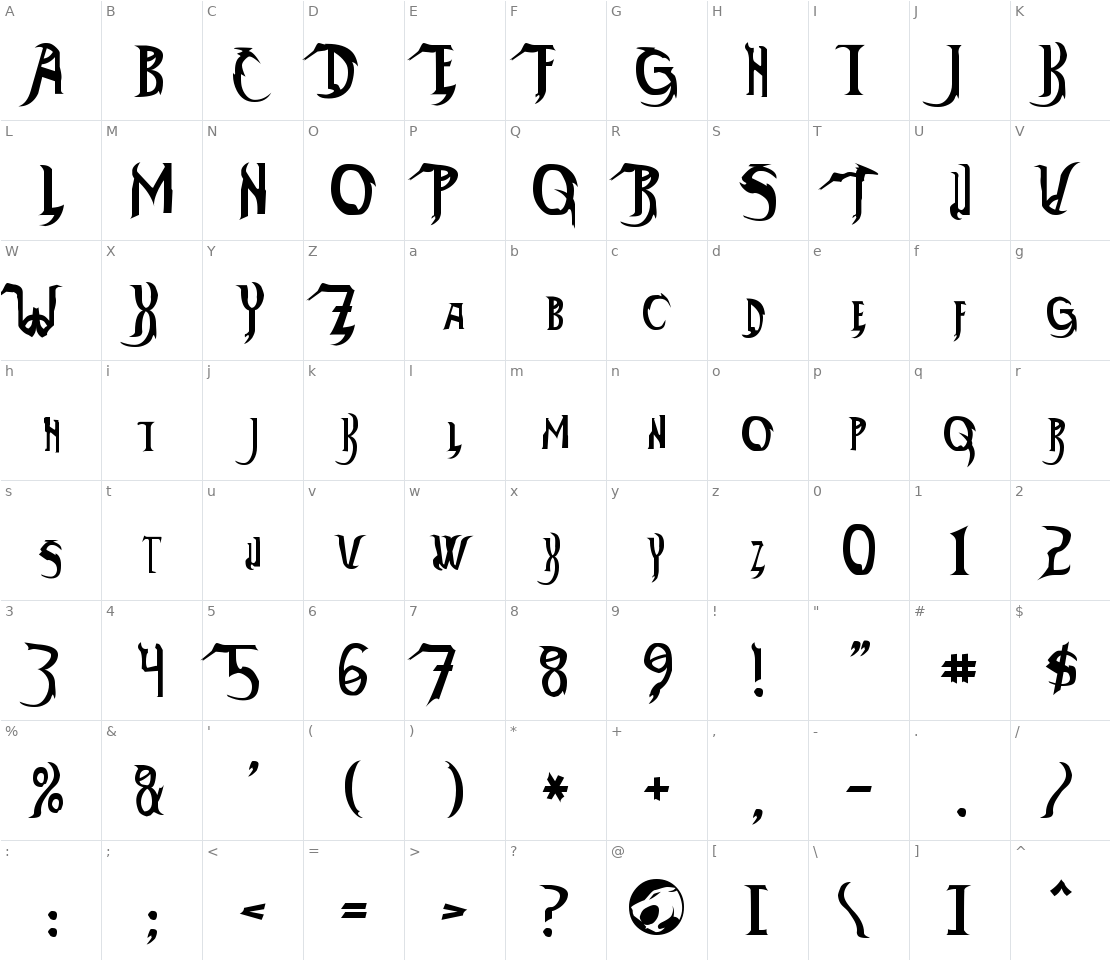
Thundara
Thundara is a dark, angular decorative face from Pixel Sagas with sharp, jagged letterforms that feel like they were carved from obsidian. The gothic proportions and aggressive pointed details push it firmly into horror and dark fantasy territory. Best kept to headlines and display use where its menacing silhouette can do the heavy lifting.